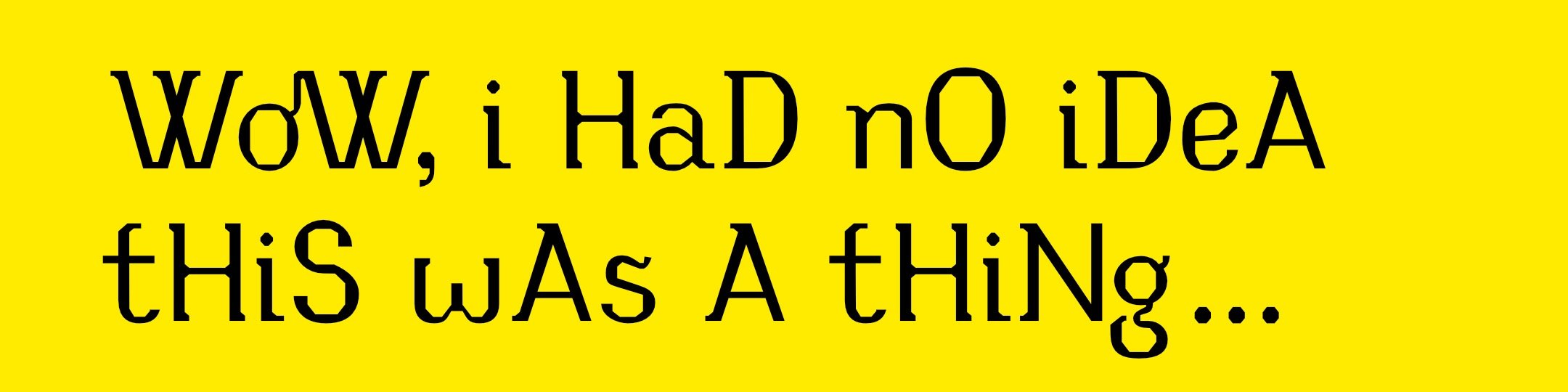
My typefaces explore the shifting boundaries of identity and belonging, drawing inspiration from the places, histories, and social moments that shape how communities form and change. Romford Stencil (2016) channels the tensions of Brexit through fractured, modular letterforms that reflect a union splitting apart. The contrasting upper- and lowercase styles symbolize coexistence without sameness. Named after Romford—where research began and where a majority voted to leave the EU—this typeface is readable in body text yet most powerful at display sizes. Suburban Collier (2020), Romford Stencil’s dreamy humanist demi-serif companion created during the COVID-19 pandemic, draws on the suburban character of Collier Row in East London. It features gentle curves, subtle ligatures, an alternative ‘a’, and broad multilingual support, bringing warmth and personality to both body copy and expressive display work. Together, these typefaces transform place and cultural memory into letterforms that carry emotional depth and visual resonance, making them ideal for designers seeking to convey rich narratives and connections through typography.